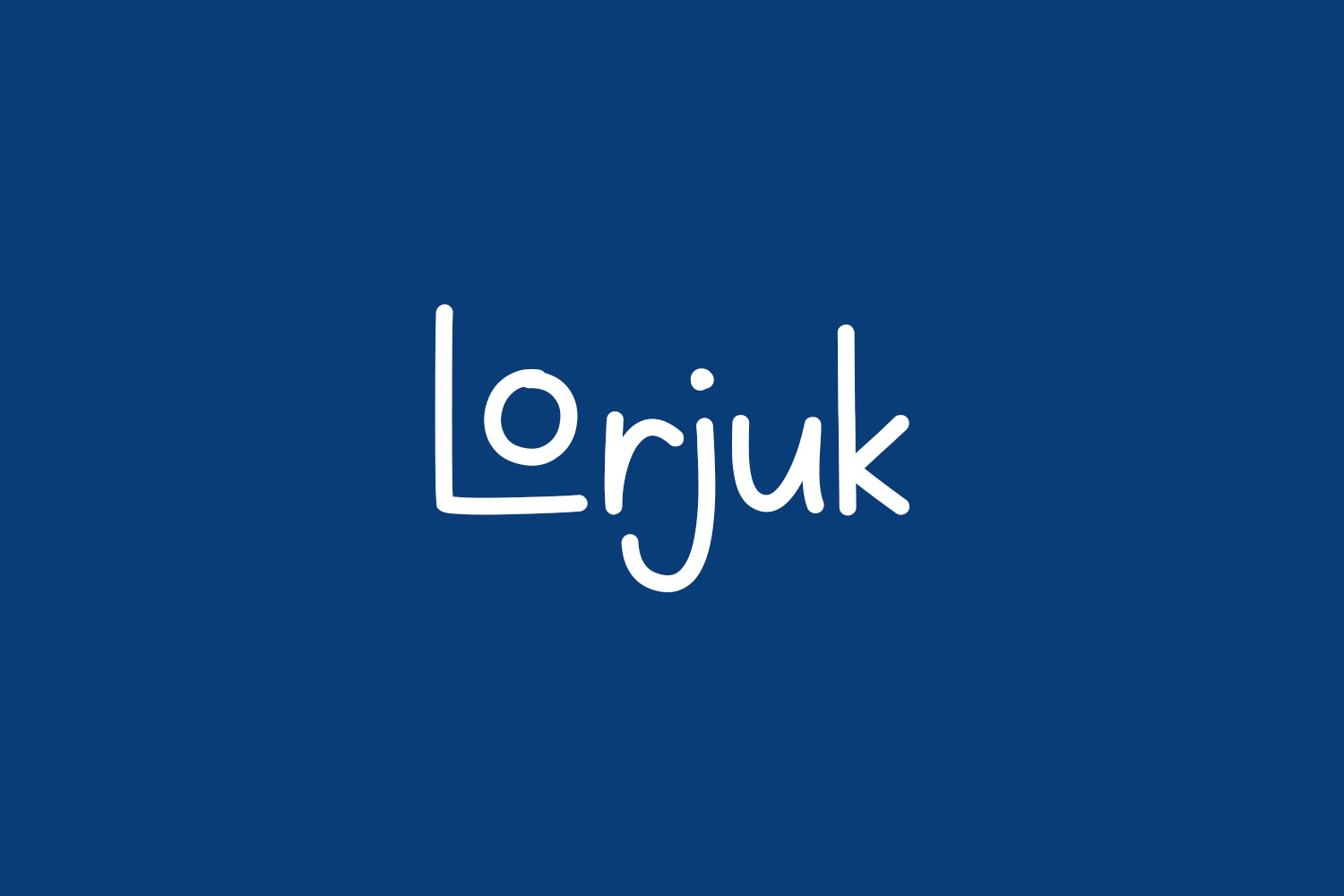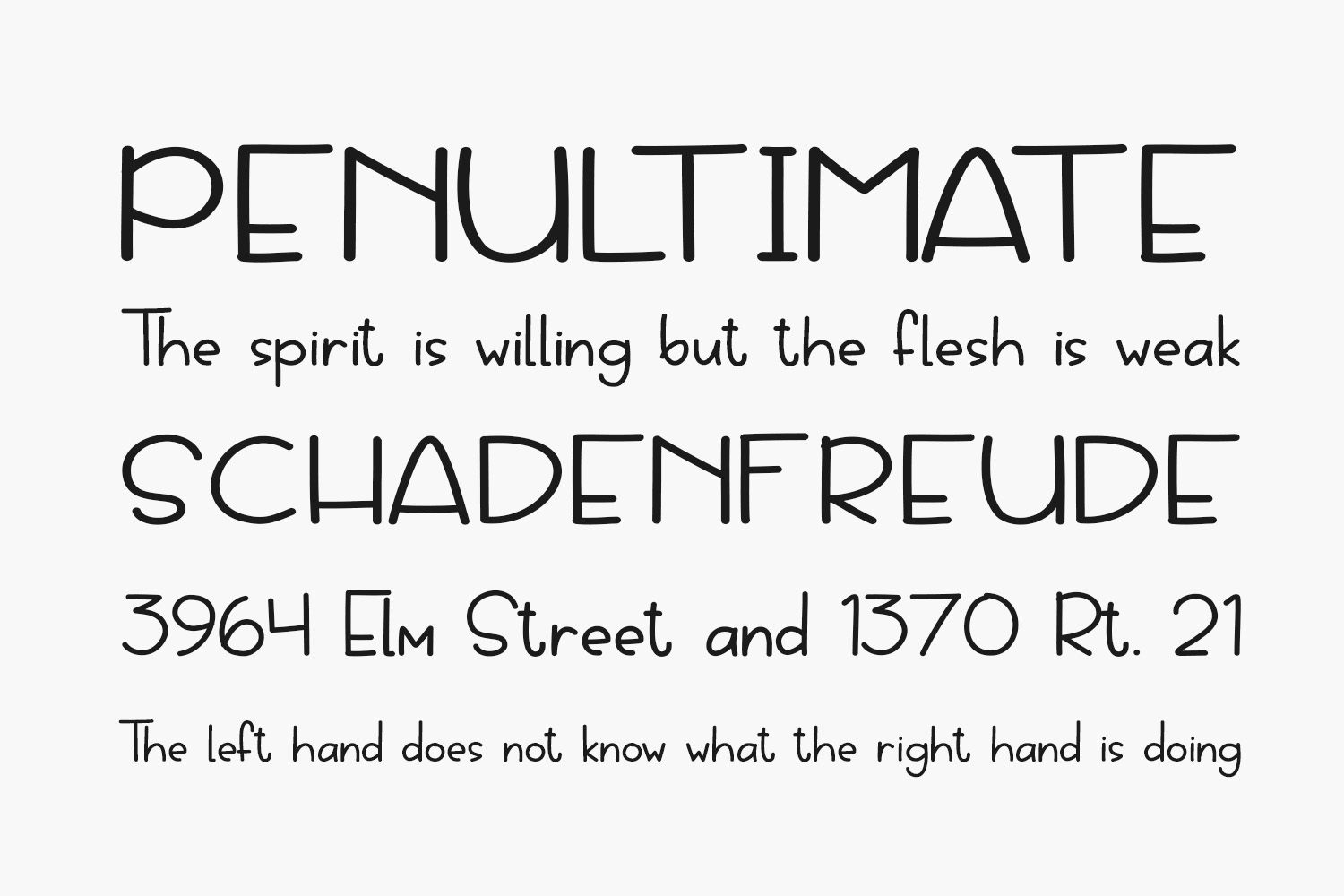
Lorjuk Free Font is a cute and friendly handwritten font. Featuring a curvy, readable and down to earth style, this font will make each of your designs look gorgeous. Lorjuk Free Font was designed by Aisyah and is free for personal use only. Please purchase the full version for commercial use.